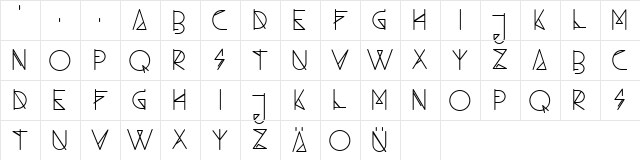
Ambo Thin Free Font
Ambo Thin
Style: Thin
Foundry: loosydesign.com
Designer: loosydesign.com
Complete Ambo Thin glyph index. Displaying only characters natively supported by Ambo Thin font.
Design Context for Ambo
Ambo is a composed and adaptable typeface that performs quietly and consistently across a wide range of design contexts. Its slender proportions lend an understated elegance to any composition.